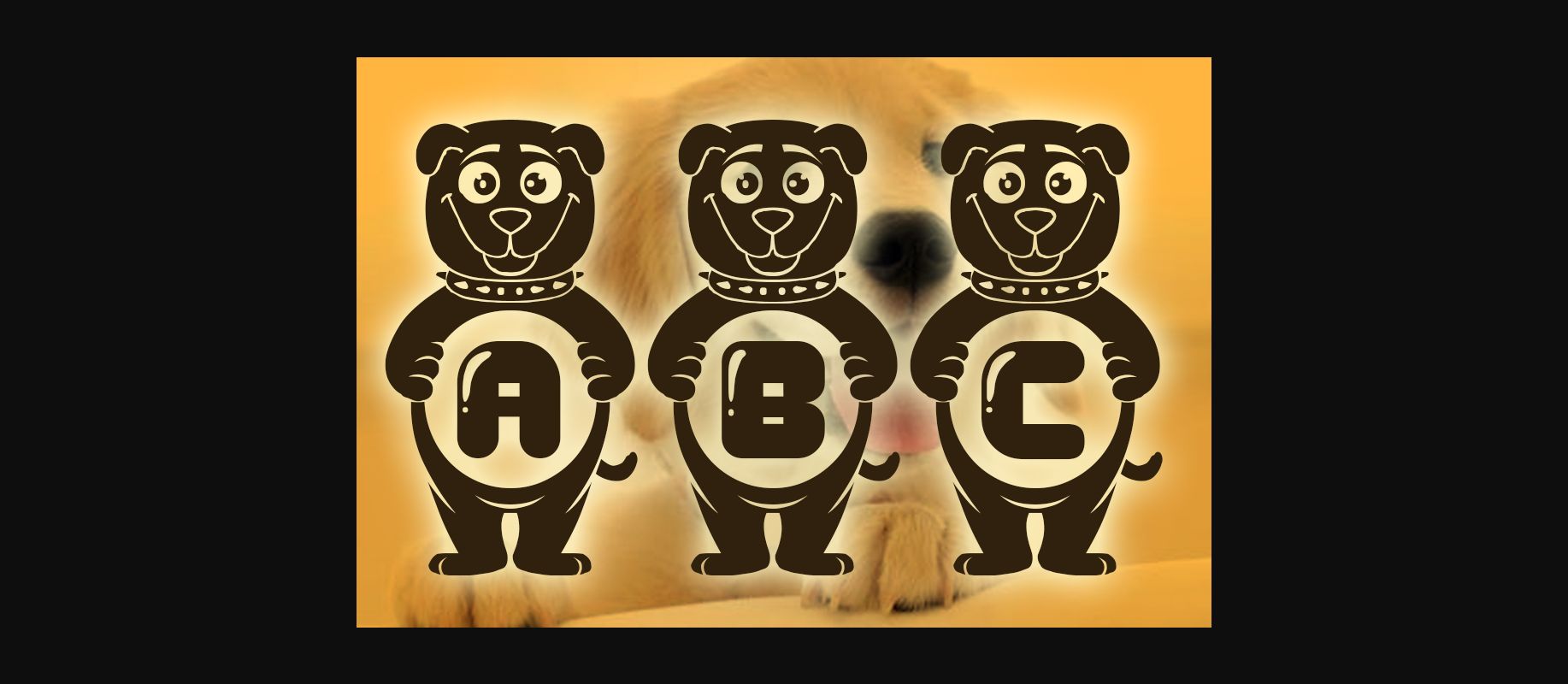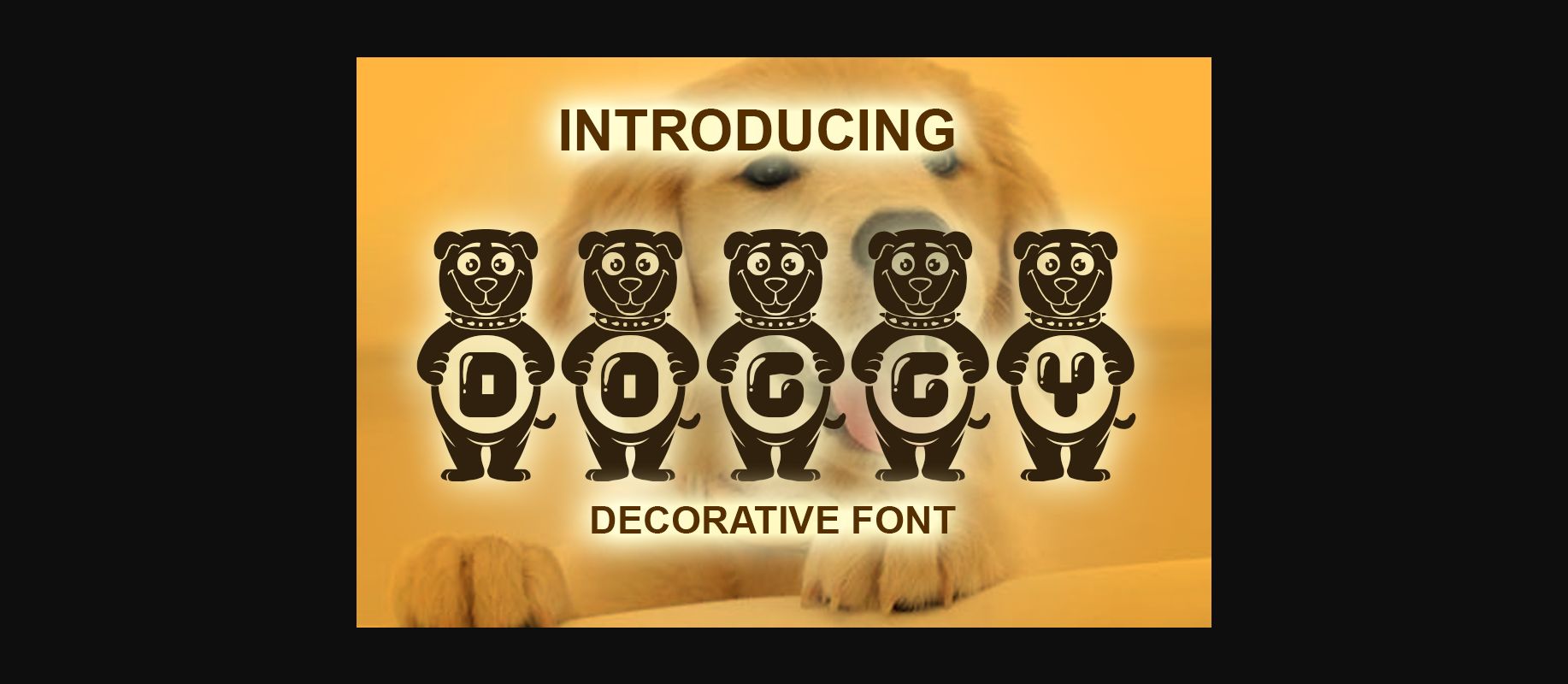
Doggy Font
About Doggy Font
Doggy is an awesome decorative font. The letters are packed in cute bears that will give your designs a playful feel. It’s perfect for birthday cards, posters, banners, flyers, t-shirts, and many more.